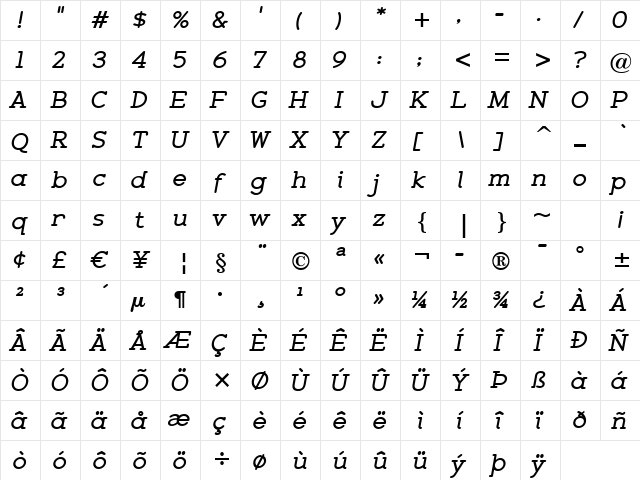
Zolano Serif BTN BoldOblique Font Preview
Design Context for Zolano Serif BTN Typeface
Zolano Serif BTN carries the refined structure of traditional serif typography, with bracketed terminals and considered proportions that communicate credibility and craft. The dynamic lean of this cut emphasises speed and emphasis in any layout. The heavy weight commands attention and anchors typographic hierarchies.
Pro Tip: Use Zolano Serif BTN for editorial body copy and considered headline work. Pair with a neutral sans for UI elements or captions to create a classic hierarchy.